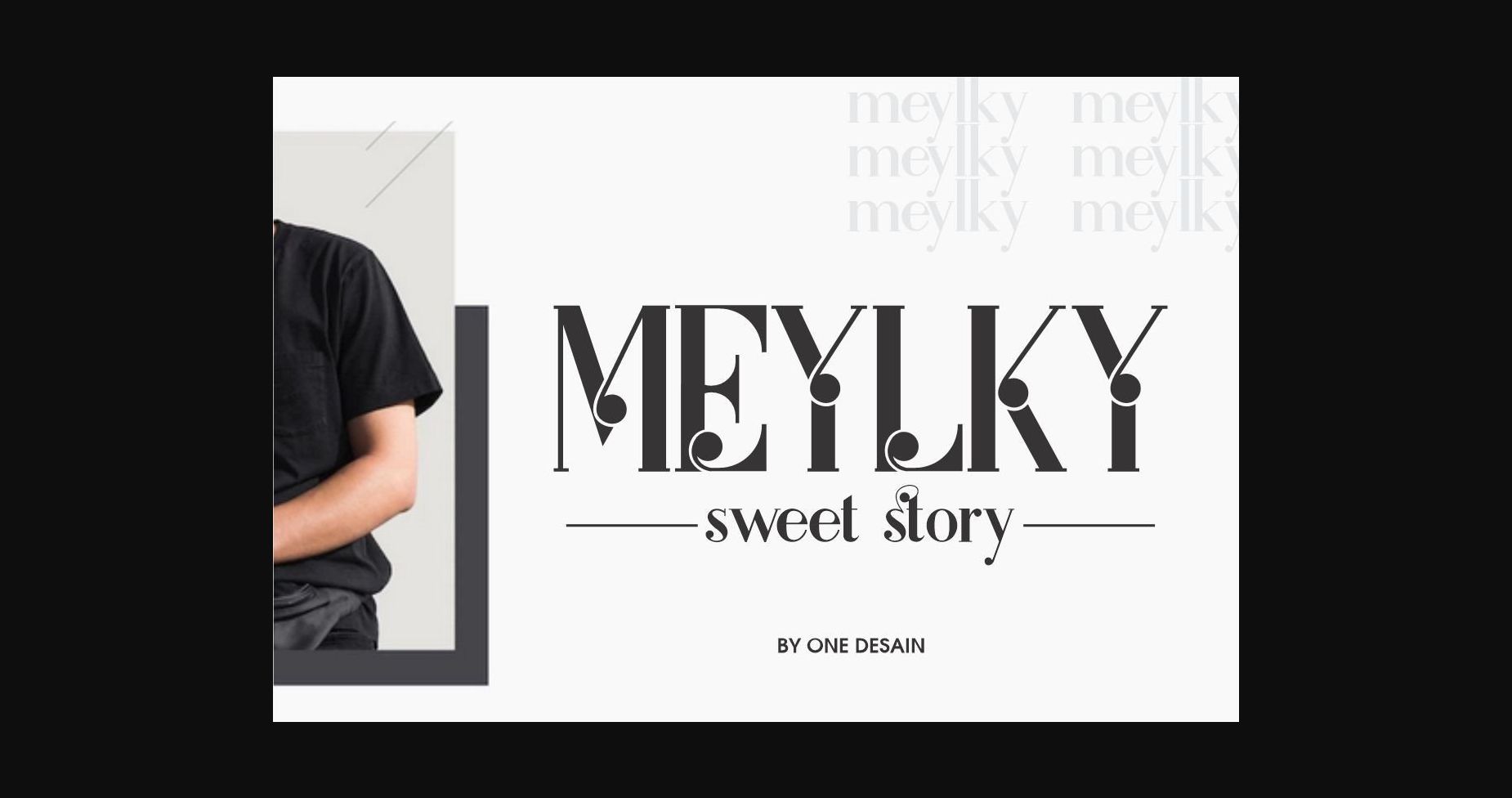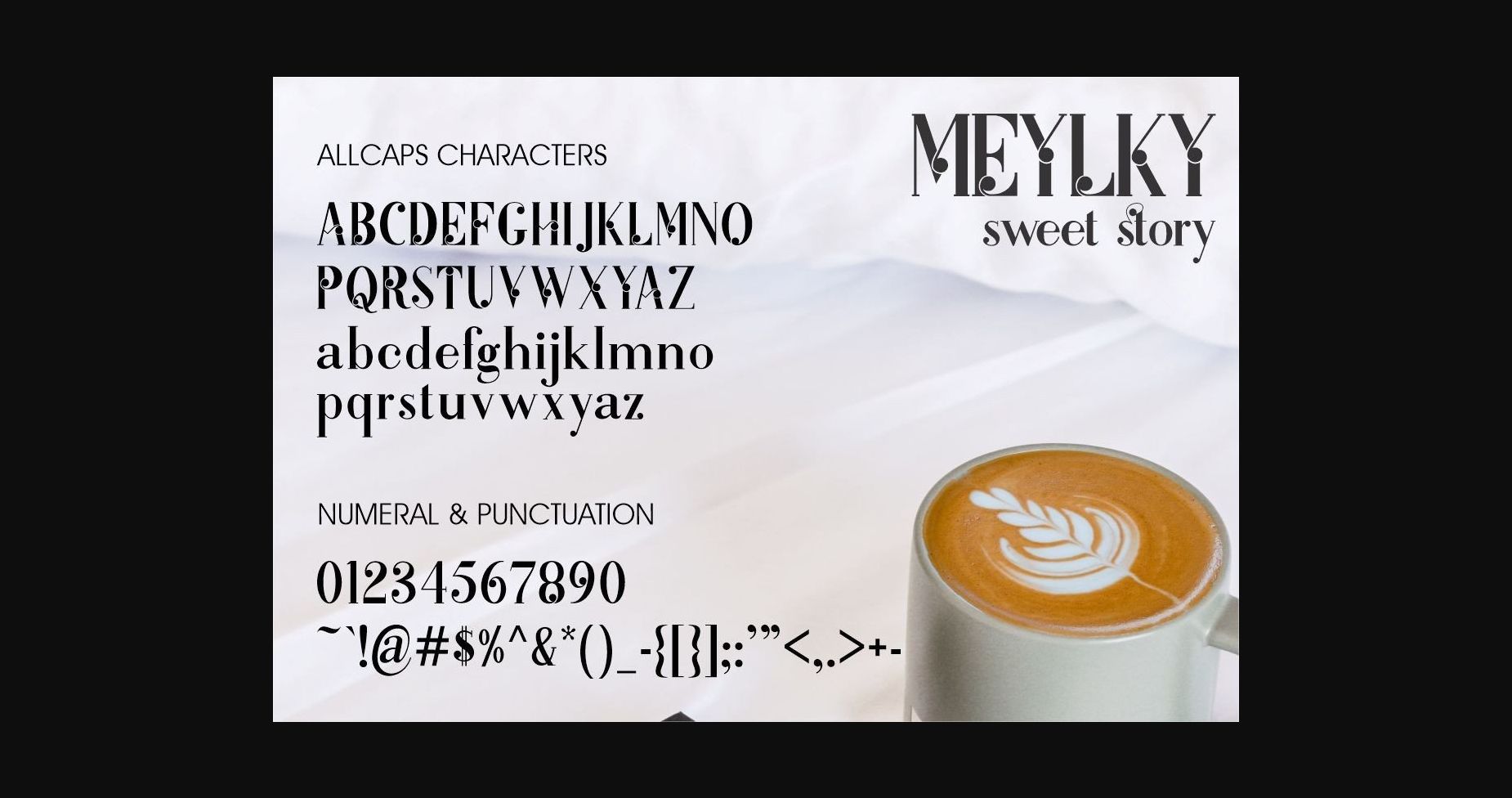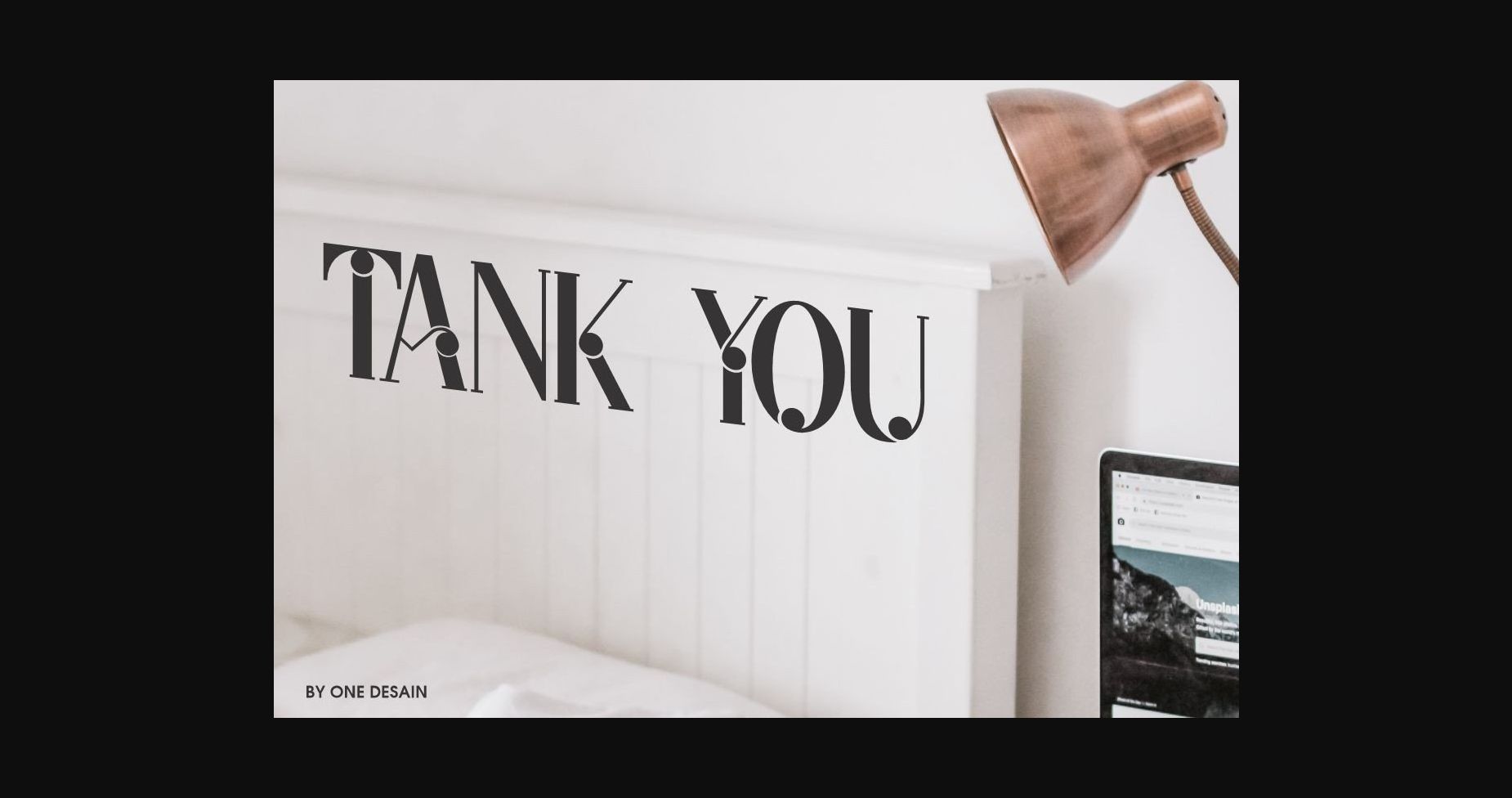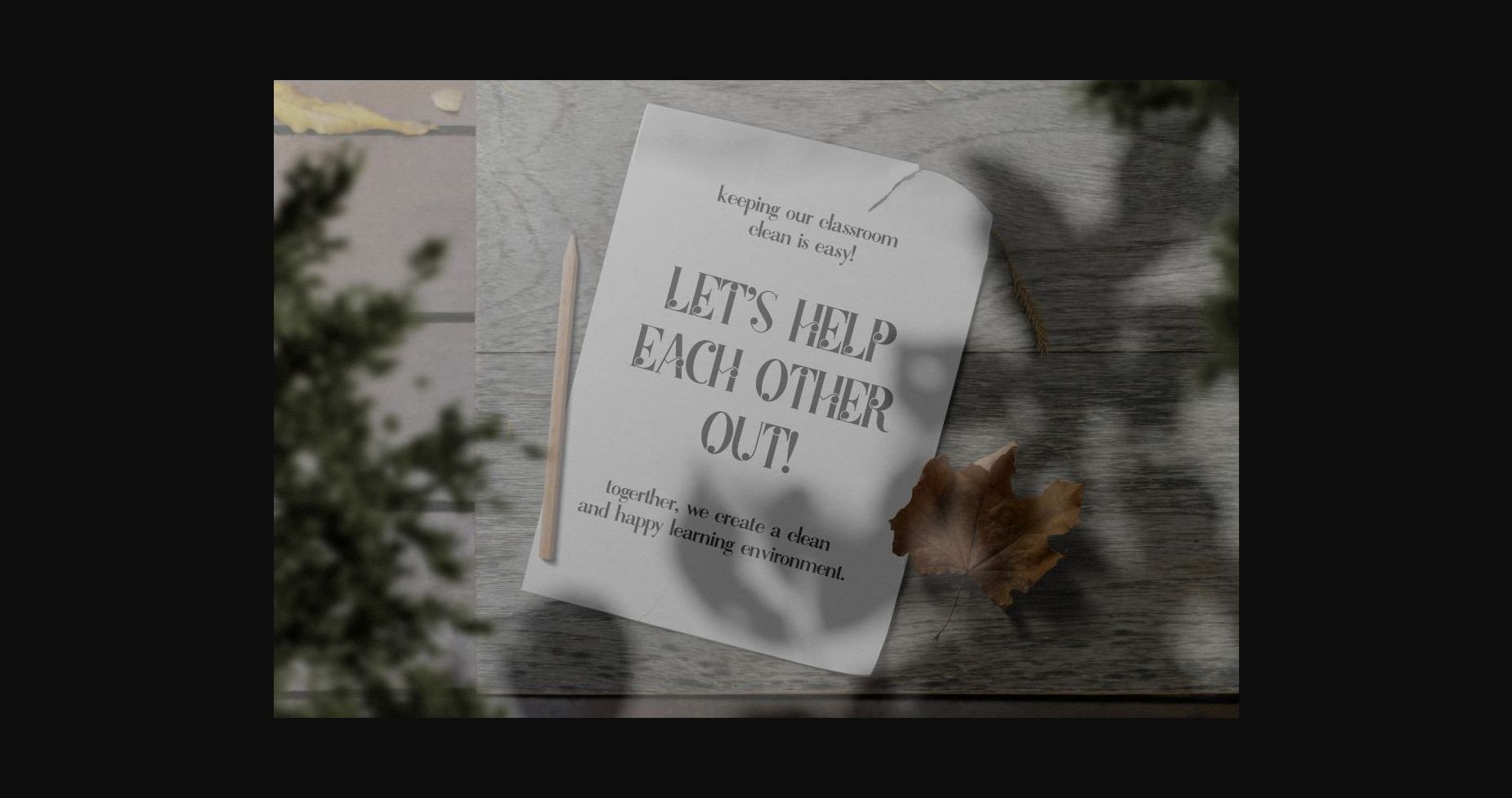
Meylky Font
About Meylky Font
Meylky is a modern but sweet sans serif font. Its classy and elegant look will make it the right choice for a wide pool of designs that need an extra special touch.